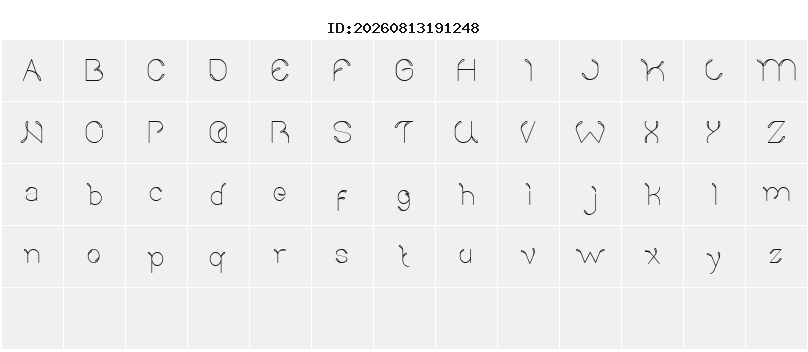
• Font Name: sprout and the Bean
• Full Font Name: sprout and the Bean
About sprout and the Bean.ttf
sprout and the Bean.ttf is a modern, elegant sans-serif font designed for ultimate readability and visual harmony. Perfect for branding, headlines, web design, and print materials.